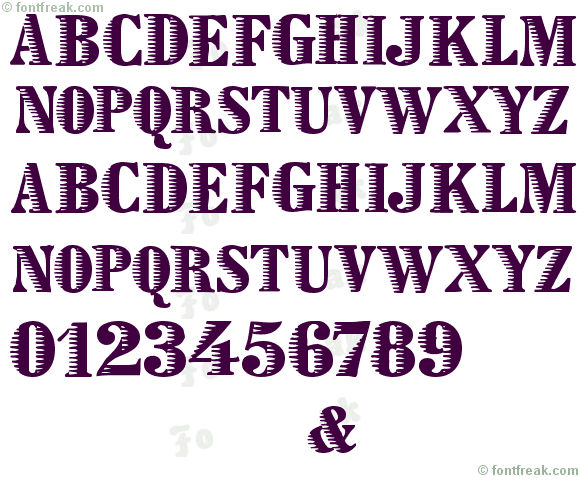
Zebraesq
Zebraesq is a unique display font created by Manfred Klein, released in July 2004 under a freeware license. This font falls into the decorative category, characterized by its playful and distinctive striped design that mimics the look of a zebra's coat. The strokes exhibit a bold weight with a consistent contrast that makes each letter eye-catching and memorable. The spacing is well-balanced, ensuring that the letters remain readable while still standing out in any application.
Zebraesq is particularly suitable for a variety of creative uses. It shines in contexts such as children's book covers, where its whimsical style can capture the imagination of young readers. Additionally, it can be effectively used for eye-catching posters and flyers that aim to draw attention, such as events at zoos or wildlife parks. The font also works wonderfully for branding in adventurous restaurants or cafes that want to convey a fun and lively atmosphere. For graphic designers, this font serves as a fantastic tool for creating logos or promotional materials that require a touch of creativity and flair. Content creators looking to add a unique element to their social media graphics or video thumbnails will find Zebraesq to be an engaging choice.
The target audience for Zebraesq includes graphic designers, small business owners, and content creators who seek to differentiate their work with a bold and memorable typeface. This font stands out due to its artistic flair and versatility, making it an excellent choice for anyone looking to make a statement. With its striking design and free availability, the Zebraesq font free download provides an opportunity for creatives to enhance their projects with a distinctive touch that is sure to leave a lasting impression.